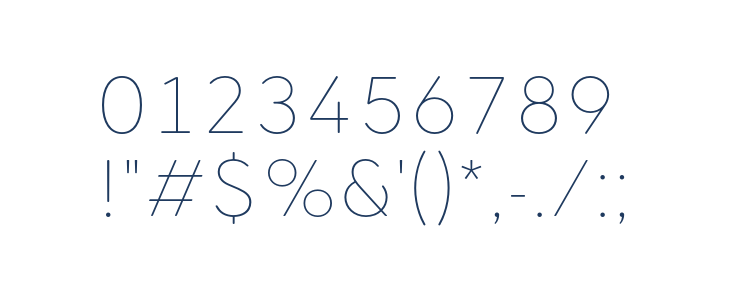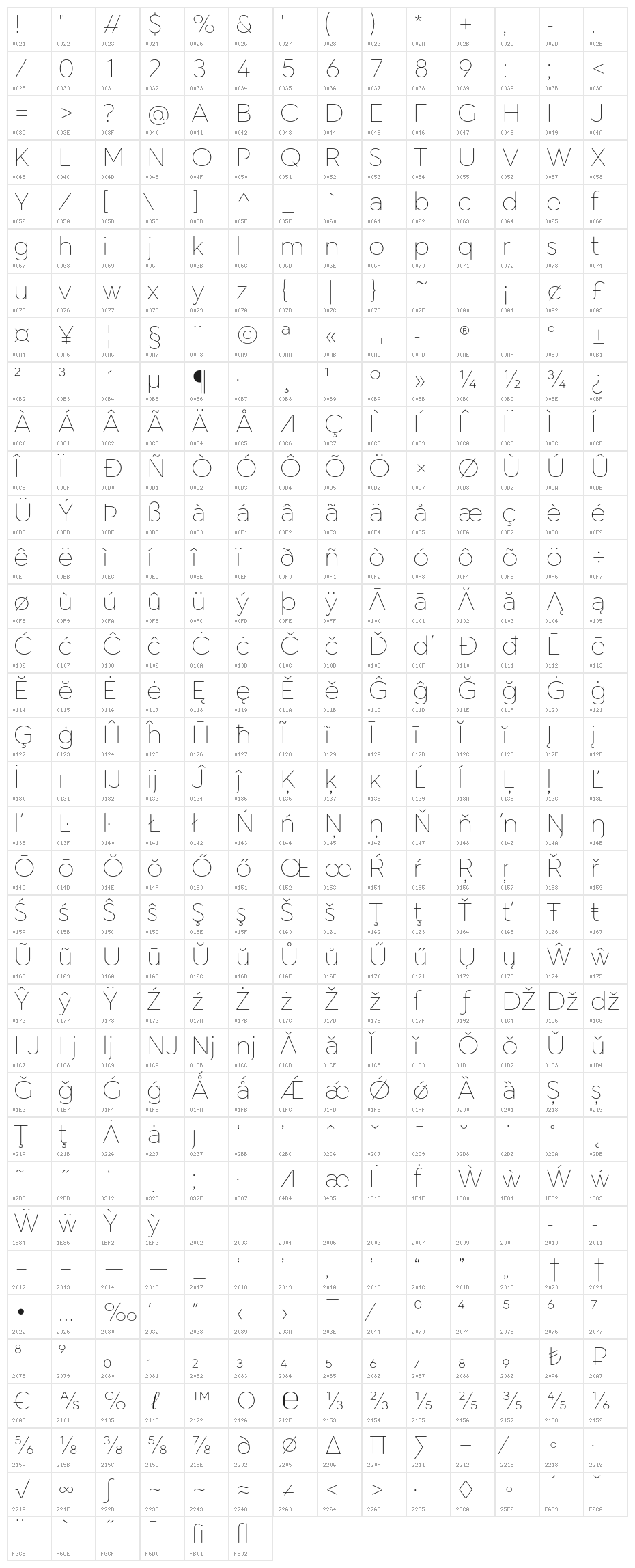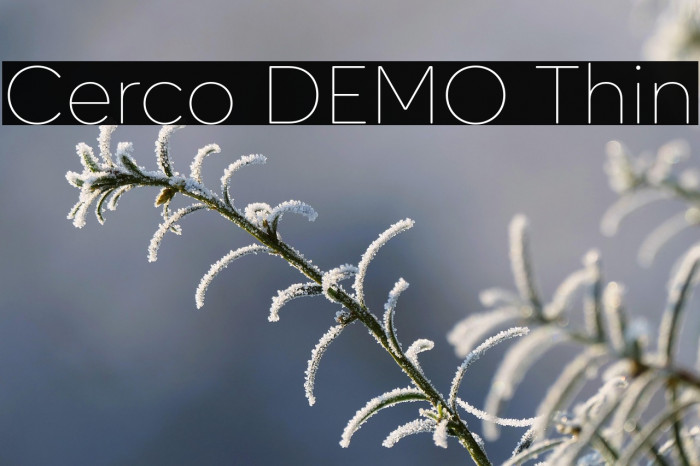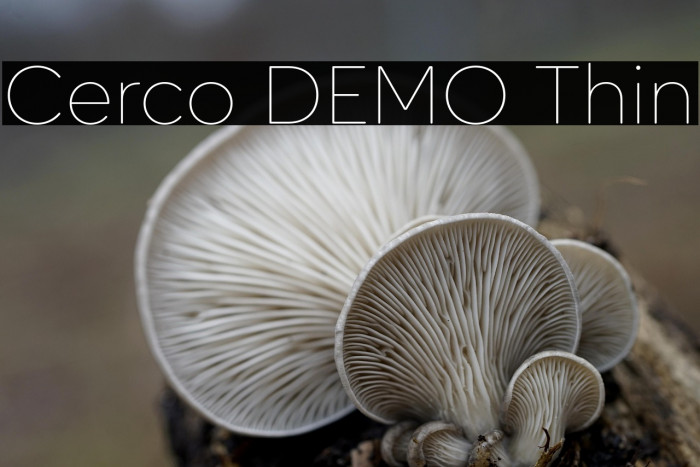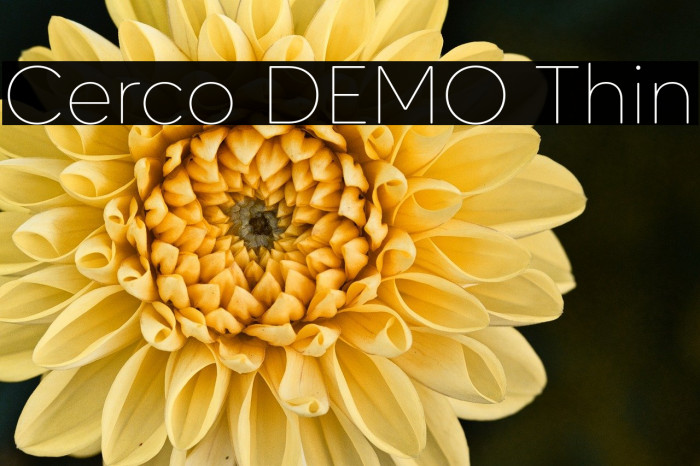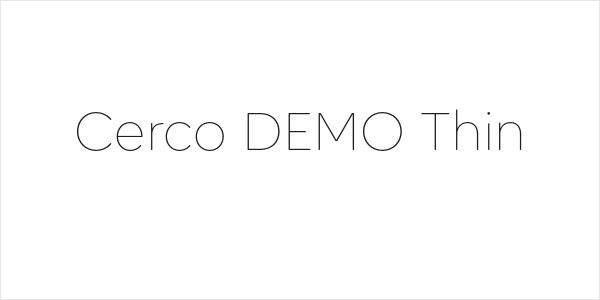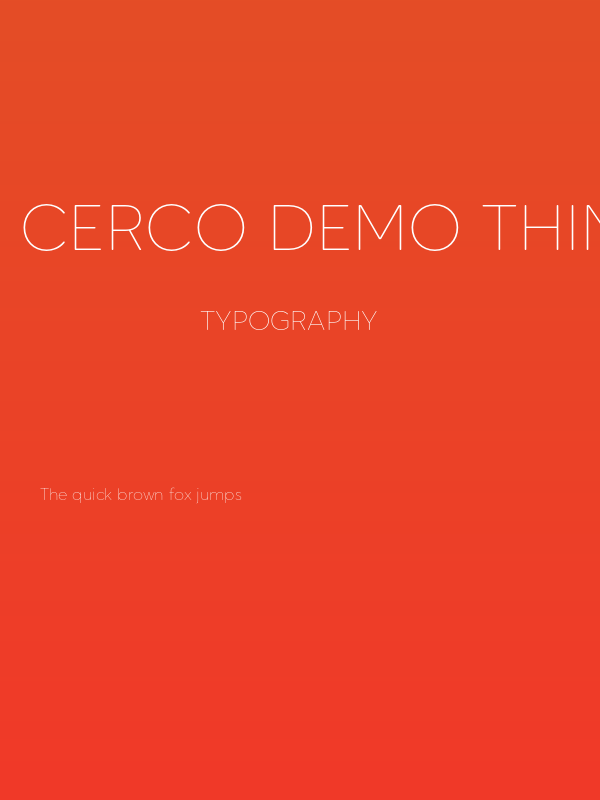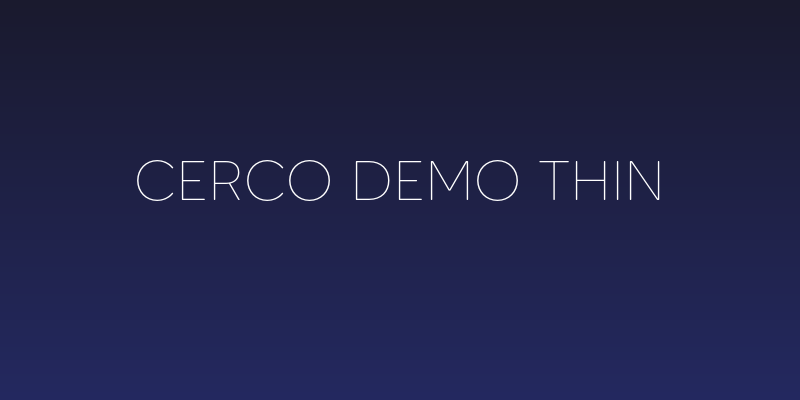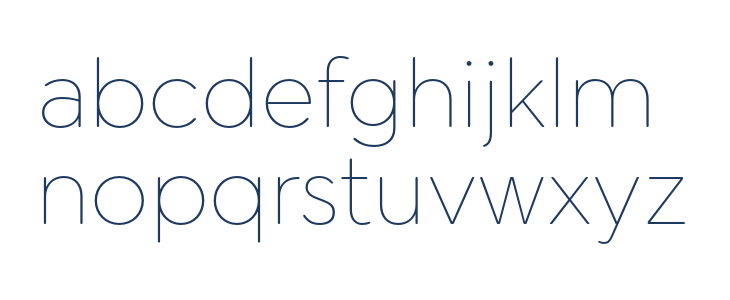
Cerco DEMO Thin Font
Cerco DEMO Thin Description
This font features a sleek and modern design with thin, clean lines that create an elegant and minimalist appearance. The characters are evenly spaced, contributing to a balanced and harmonious look. The uppercase and lowercase letters maintain a consistent style, with rounded edges and a geometric structure that enhances readability. The numerals and special characters are designed to match the overall aesthetic, making this font versatile for various applications. Its simplicity and clarity make it suitable for both digital and print media.